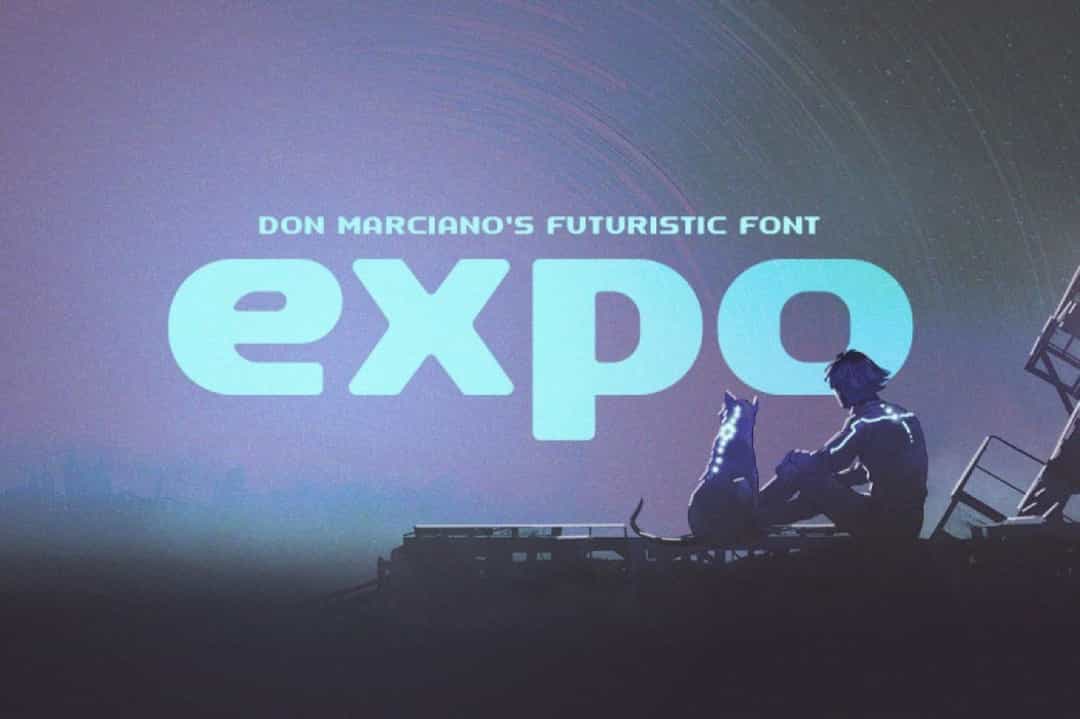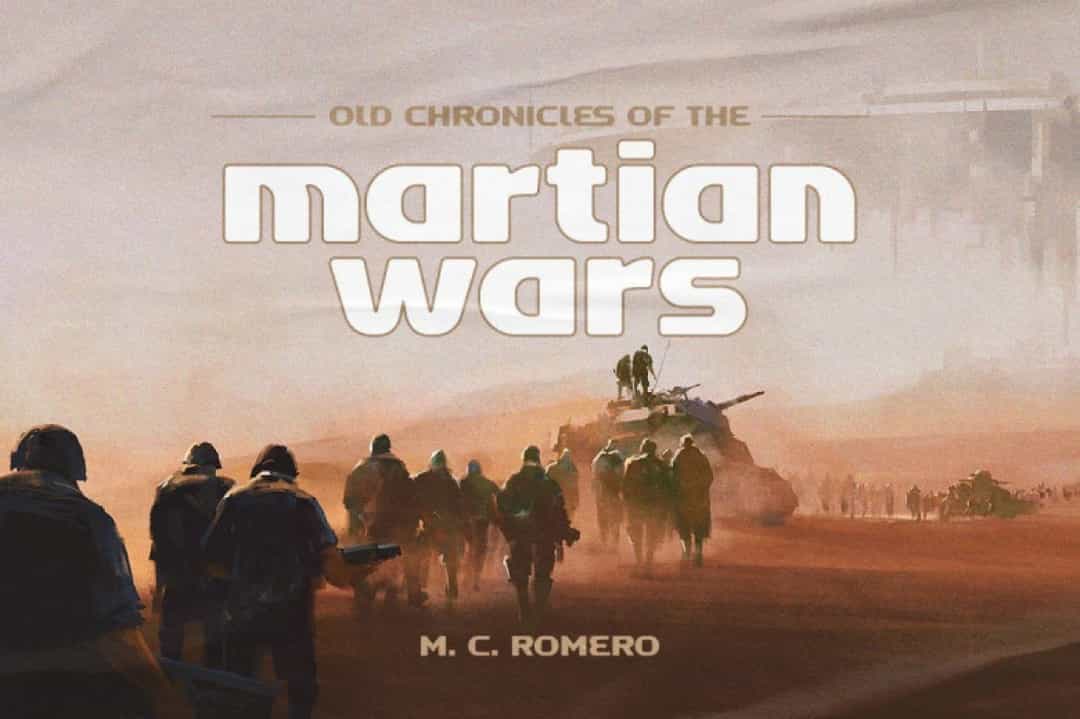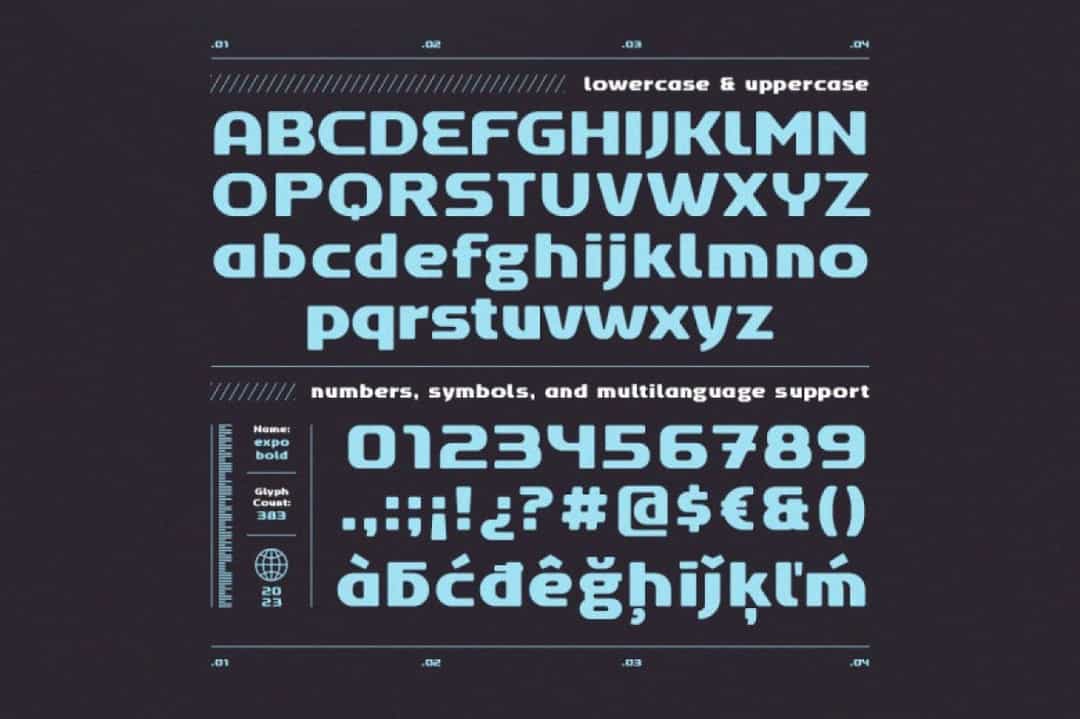
Expo is an innovative sci-fi display typeface created using a fluidly rounded style to evoke retro designs with modern flair, as the aim of the font is to bring retro into the 21st century with a fresh modern edge. Additionally, this font comes equipped with lower and upper cases, punctuation that is standard and international characters to support creative endeavors across languages and help achieve your creative goals more easily.